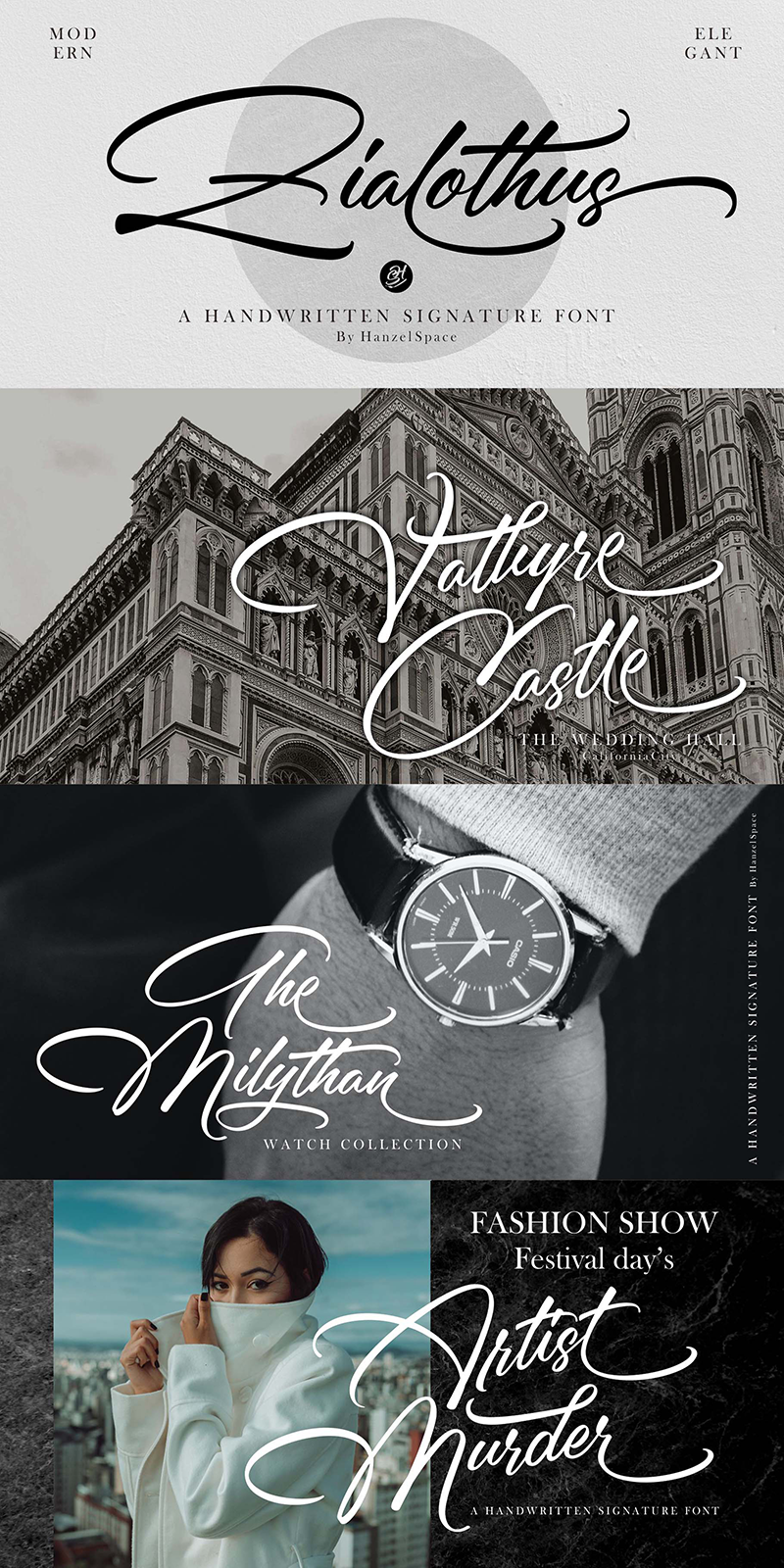
Zialothus – Handwritten Signature Font Font
About Zialothus – Handwritten Signature Font
Zialothus – Handwritten Signature Font
A rather charming handwritten font, “Zialothus”, is here to brighten up your design work. This handwritten typeface equipped with alternate swashes is inspired by naturally made writing. With 26 swashes, your design will appear with the appropriate work. Whether you want to create a logo, quote, branding, card and this typeface is the right choice.
Zialothus was designed for personal characters such as strong, confidence, dynamic, readable, Energic, dynamic, etc.
– Full Set of standard alphabet and punctuation
– Multilingual Characters (ÁÂÄÀÅÃÆÇÐÉÊËÈÍÎÏÌÑÓÔÖÒØÕÚÛÜÙẂŴẄẀÝŶŸỲ áâäàåãæçðéêëèíîïìñóôöòøõœúûüùẃŵẅẁýŷÿỳ€£¥)